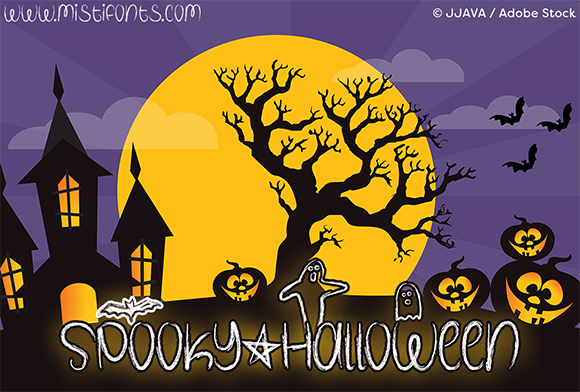
About Spooky Halloween Font
Spooky Halloween is a spooky font that is perfect for your Halloween projects!
Special Symbols:
Type * (asterisk) for the star
Type ^ (circumflex) for the bat
Type | (vertical bar) for the big ghost
Type (backslash) for the small ghost
Note: This font may be slower to load than a regular font due to the “chalky-crayon-like” detail.